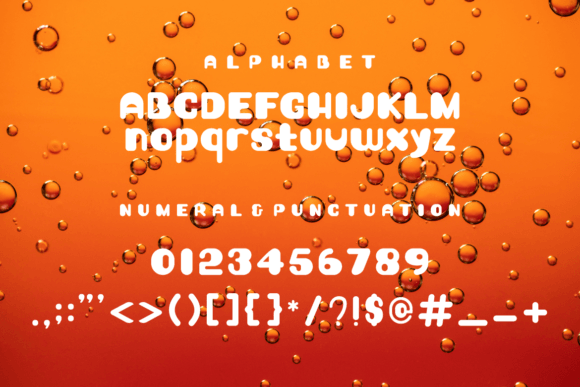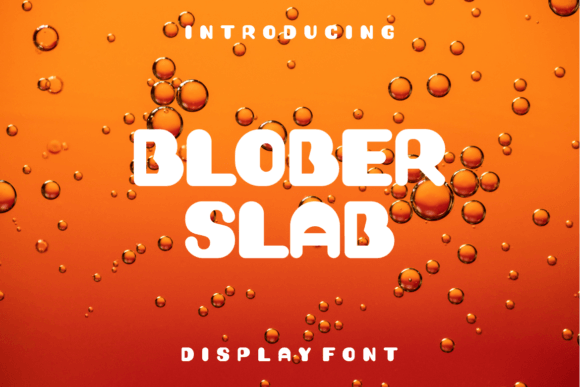
Introducing Blober Slab Font: The Ultimate Display Font for Modern Branding
In the world of typography, a font can make or break a brand’s identity. A well-designed font can elevate a brand’s visual appeal, convey its personality, and leave a lasting impression on its audience. If you’re a designer, craftsperson, or brand owner looking for a font that can help you create stunning branding projects, look no further than Blober Slab Font. In this article, we’ll explore the features, benefits, and uses of Blober Slab Font, and why it’s an excellent choice for your next branding project.
What is Blober Slab Font?
Blober Slab Font is a modern, bold, and authentic display font designed to make a statement. Its unique blend of sleek lines, sturdy slab serifs, and geometric shapes creates a distinctive look that’s both eye-catching and memorable. The font’s modern design makes it perfect for brands that want to convey a sense of innovation, sophistication, and style.
Key Features of Blober Slab Font
- Bold and Authentic: Blober Slab Font is a bold and authentic font that’s designed to grab attention. Its sturdy slab serifs and geometric shapes give it a solid, dependable feel that’s perfect for creating a strong brand identity.
- Modern Design: The font’s modern design makes it perfect for brands that want to convey a sense of innovation, sophistication, and style. Its sleek lines and geometric shapes create a clean, contemporary look that’s sure to appeal to modern audiences.
- Versatile: Blober Slab Font is a versatile font that can be used for a wide range of branding projects, from logos and t-shirts to esports and more.
Benefits of Using Blober Slab Font
So why choose Blober Slab Font for your branding projects? Here are just a few benefits of using this amazing font:
- Stand Out from the Crowd: With its bold and authentic design, Blober Slab Font is sure to help your brand stand out from the crowd. Its unique look and feel will grab attention and leave a lasting impression on your audience.
- Convey Your Brand’s Personality: Blober Slab Font is a font that can convey a sense of innovation, sophistication, and style. It’s perfect for brands that want to convey a modern, forward-thinking personality.
- Easy to Read: Despite its bold design, Blober Slab Font is easy to read, even at small sizes. This makes it perfect for use on a wide range of materials, from business cards to billboards.
Uses of Blober Slab Font
So what can you use Blober Slab Font for? The possibilities are endless! Here are just a few ideas to get you started:
- Logo Design: Blober Slab Font is perfect for creating bold, eye-catching logos that will help your brand stand out.
- T-Shirt Printing: The font’s bold design makes it perfect for use on t-shirts, hoodies, and other apparel.
- Esports: Blober Slab Font is a great choice for esports branding, with its modern design and bold, attention-grabbing look.
- Advertising: The font’s versatility makes it perfect for use in advertising, from billboards to social media ads.
In conclusion, Blober Slab Font is an amazing display font that’s perfect for modern branding projects. Its bold and authentic design, modern look, and versatility make it a great choice for designers, craftspersons, and brand owners looking to create stunning branding materials. Whether you’re creating a logo, t-shirt, or esports branding, Blober Slab Font is sure to help you make a statement. So why wait? Download Blober Slab Font today and start creating your own amazing branding projects!